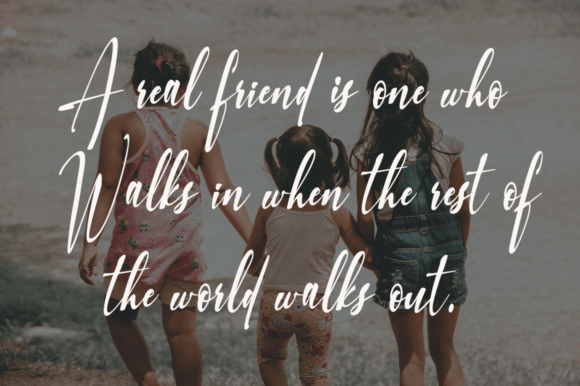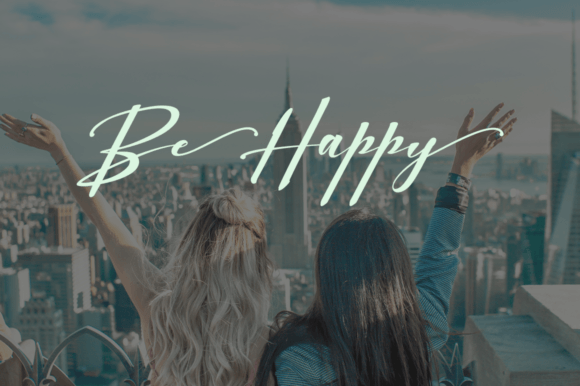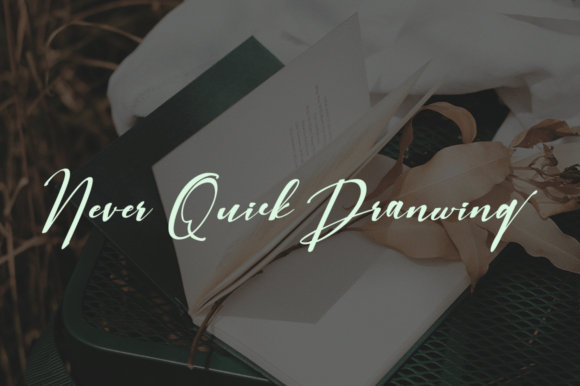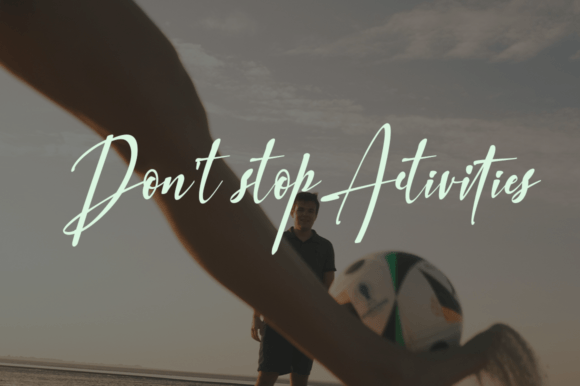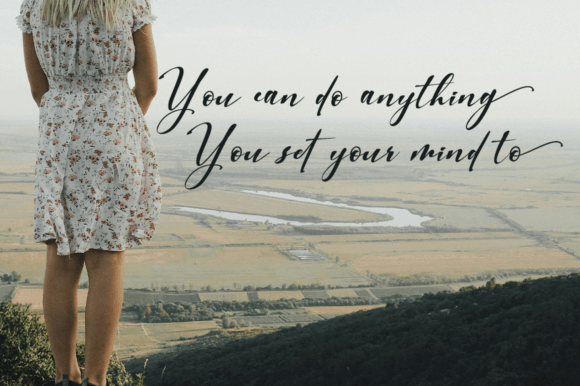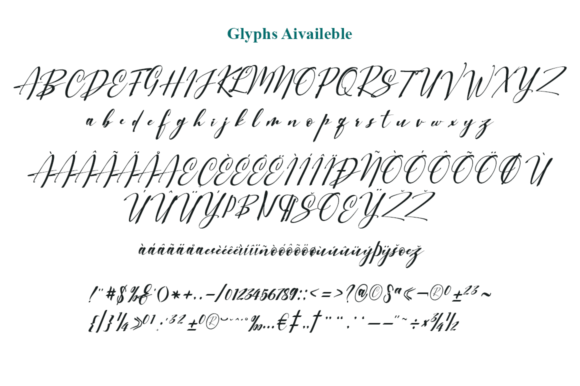
Introducing Charlotte Font: Elevate Your Designs with Elegant Calligraphy
Are you looking for a font that exudes elegance, sophistication, and a touch of handmade charm? Look no further than Charlotte Font, a beautiful calligraphy and natural font perfect for a wide range of design projects. In this article, we’ll dive into the world of Charlotte Modern Calligraphy, exploring its features, uses, and benefits for designers and crafters.
What is Charlotte Font?
Charlotte Font is a stunning calligraphy font that boasts a natural, handwritten feel. Its elegant strokes and fluid curves make it an ideal choice for designs that require a touch of sophistication and refinement. Whether you’re working on a wedding invitation, branding project, or social media post, Charlotte Font is sure to elevate your design to the next level.
Key Features of Charlotte Modern Calligraphy
- Elegant Calligraphy: Charlotte Font features beautiful, flowing calligraphy that adds a touch of luxury to any design.
- Natural Handwritten Feel: The font’s natural, handwritten feel makes it perfect for designs that require a personal touch.
- Versatile: Charlotte Font can be used for a wide range of design projects, from wedding designs to branding projects, logos, and more.
- Easy to Read: Despite its elegant and cursive nature, Charlotte Font remains easy to read, making it perfect for body text and headings.
Uses of Charlotte Font
Charlotte Font is an incredibly versatile font that can be used for a wide range of design projects, including:
- Wedding Designs: Create stunning wedding invitations, save-the-dates, and wedding stationery with Charlotte Font.
- Branding Projects: Use Charlotte Font to create elegant logos, business cards, and marketing materials that reflect your brand’s personality.
- Social Media Posts: Add a touch of elegance to your social media posts, including Instagram captions, Facebook posts, and Twitter updates.
- Advertisements: Create eye-catching advertisements that stand out from the crowd with Charlotte Font.
- Product Packaging: Use Charlotte Font to create beautiful product labels, packaging, and design elements that reflect your brand’s style.
- Invitations and Stationery: Create personalized invitations, stationery, and greeting cards with Charlotte Font.
- Photography and Watermarks: Add a touch of elegance to your photography with Charlotte Font, perfect for watermarks, captions, and more.
Benefits of Using Charlotte Font
So, why choose Charlotte Font for your design projects? Here are just a few benefits:
- Unique and Elegant: Charlotte Font adds a touch of elegance and sophistication to any design, setting it apart from more traditional fonts.
- Time-Saving: With Charlotte Font, you can create beautiful designs quickly and easily, without sacrificing quality or style.
- Versatile: Charlotte Font can be used for a wide range of design projects, making it a valuable addition to any designer’s toolkit.
Charlotte Font is a stunning calligraphy font that offers a unique blend of elegance, sophistication, and handmade charm. With its versatile nature, easy-to-use design, and wide range of applications, Charlotte Modern Calligraphy is perfect for designers and crafters looking to elevate their designs to the next level. Whether you’re working on a wedding invitation, branding project, or social media post, Charlotte Font is sure to impress.